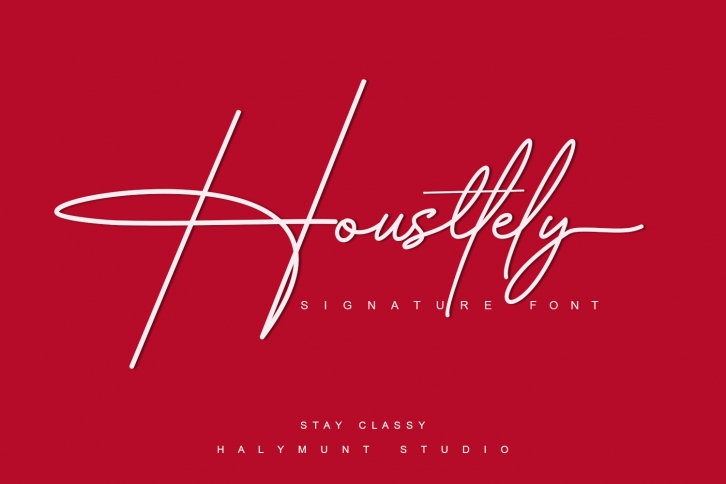
Housttely Signature is a beautiful font that was designed by Halymunt Studio. It's a great choice for designers and creatives who need such a font. It was released on September 12, 2019 and the file size is 7.69 MB. Housttely Signature may give a more youthful, expressive and casual look to your project. It is a very beautiful, refined, elegant, and high-quality font.